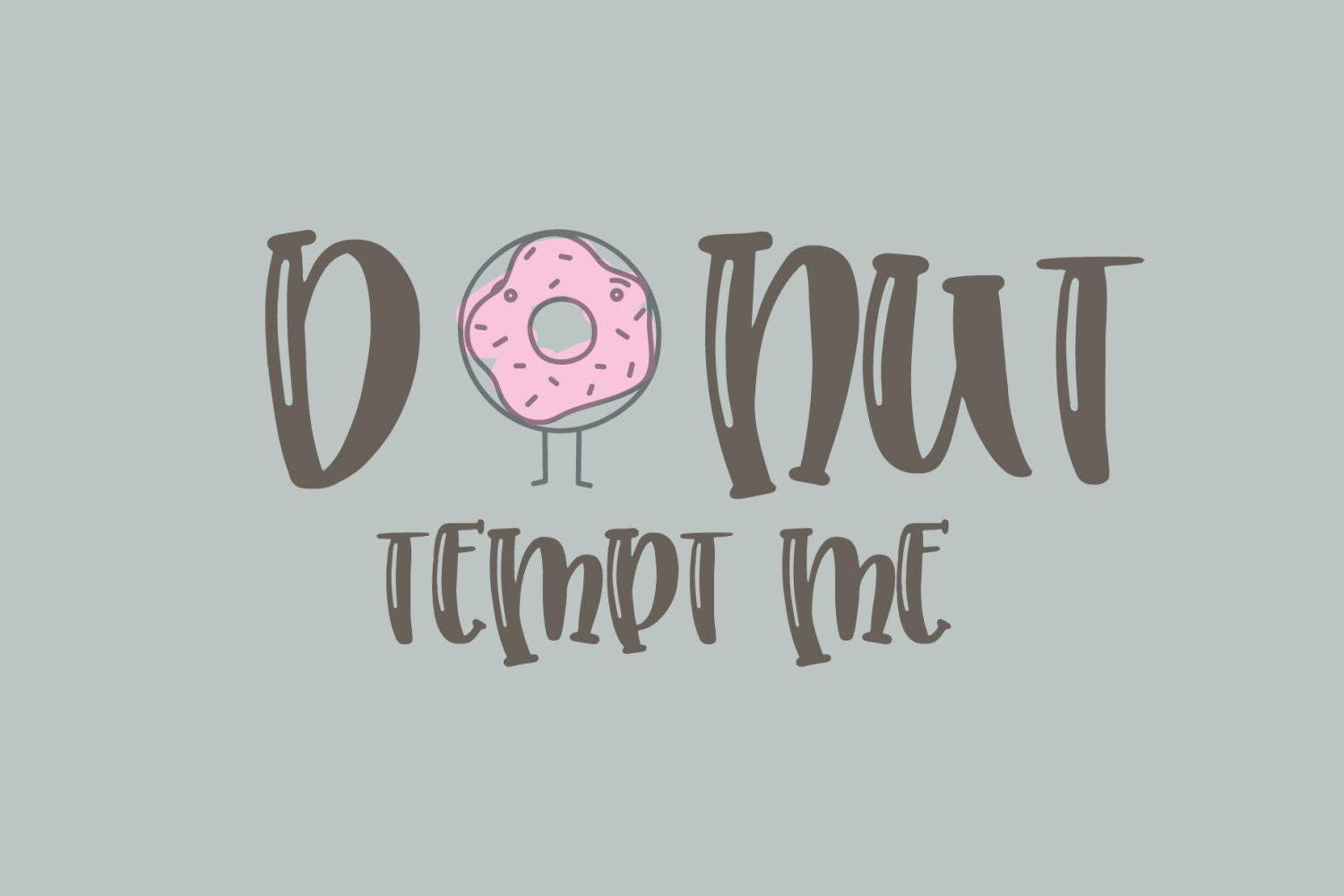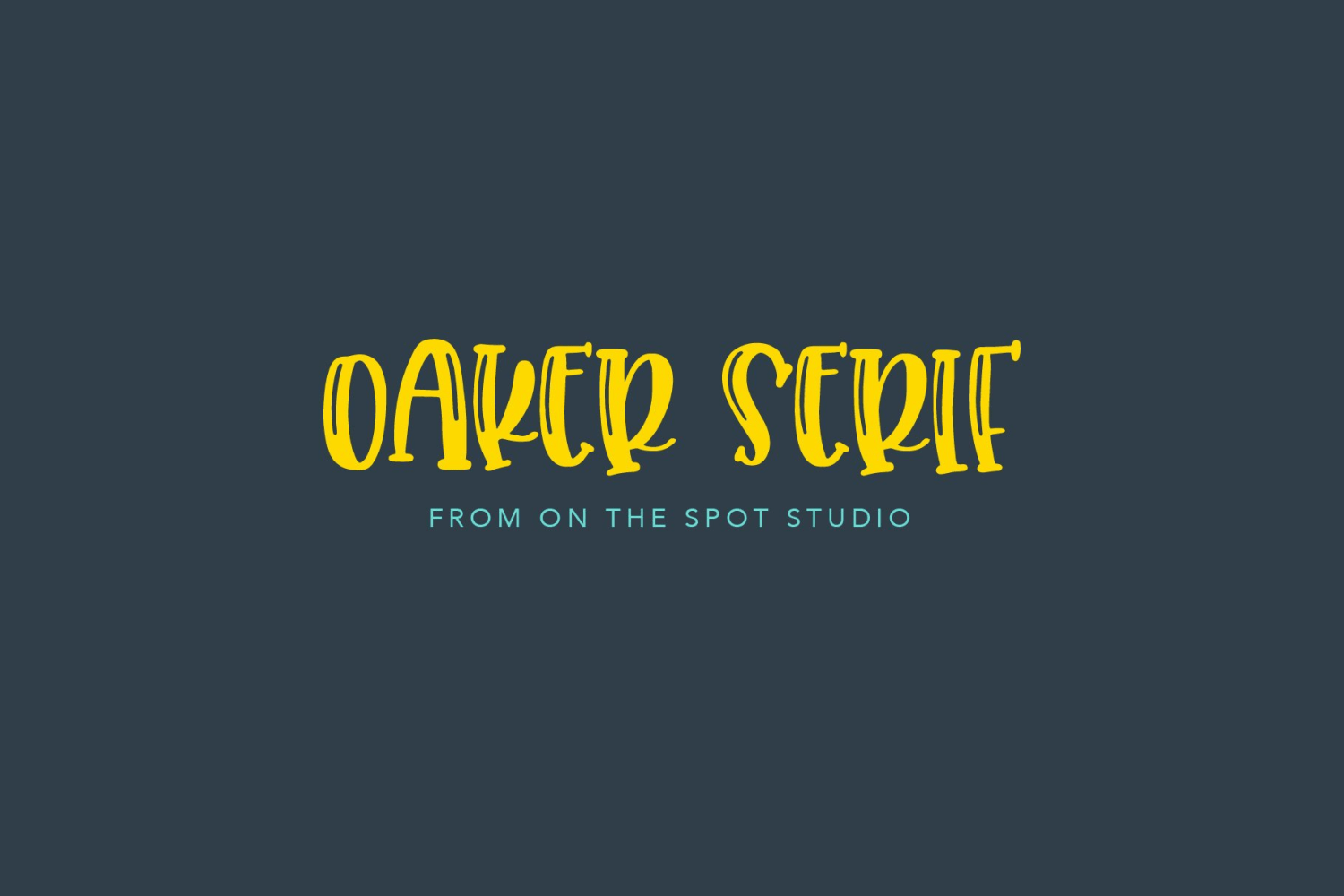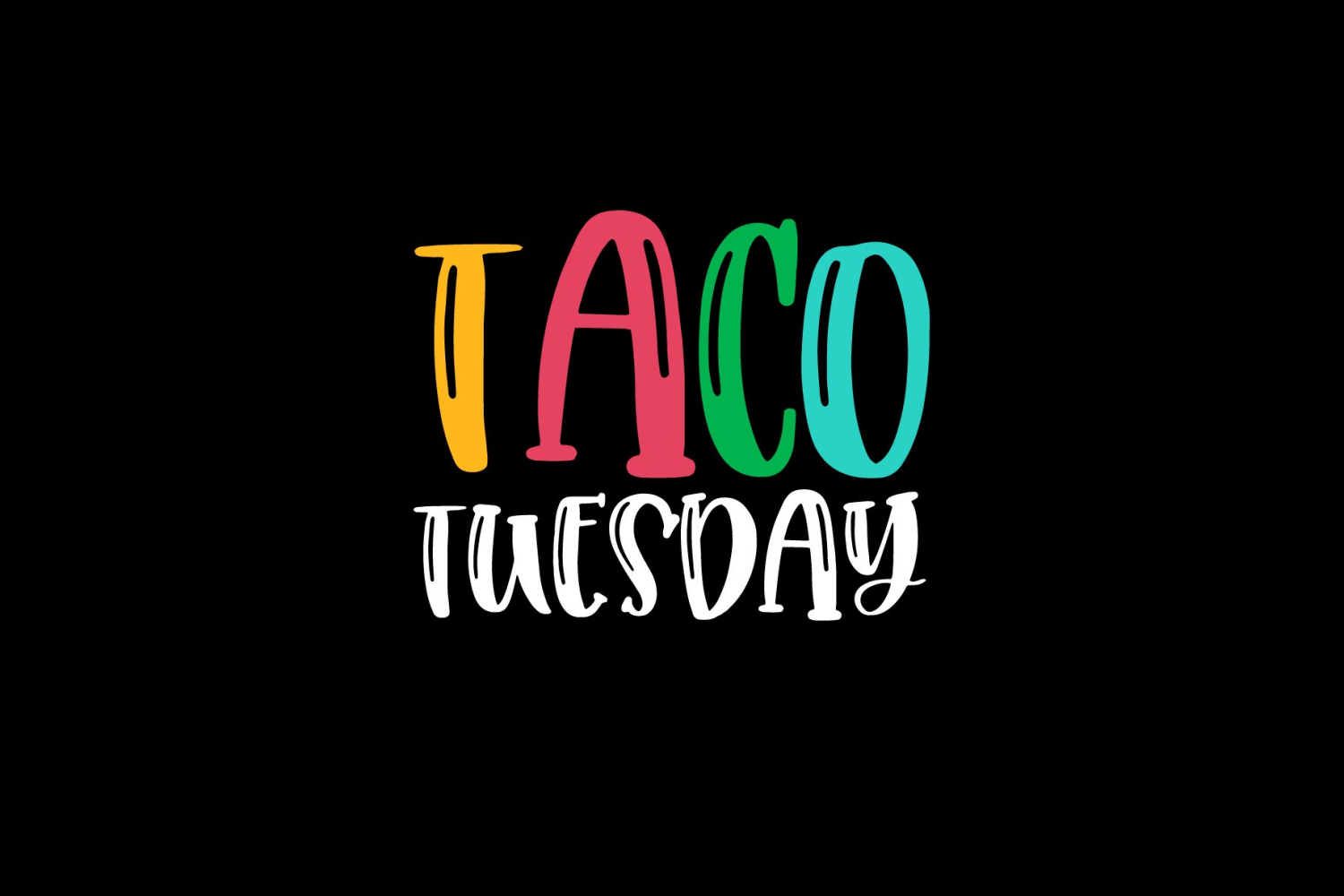
HomeFont BrosSerifOaker Serif SerifWacky Oaker Serif FacebookXPinterestWhatsApp 1 of 3 About Oaker Serif Introducing Oaker SERIF! A fun font that works PERFECTLY with the original OAKER font! PERFECT for crafting, using cutting machines such as silhouette or cricut, sublimation and more!  DOWNLOAD ON FONT BROSThis font is sold and delivered by Font Bros. Font Canyon may earn a commission if you buy through this link. People also explored Filmotype Prima Whilly Font The Castellon Font Sefia Font Buttersoy Font Minoila Unicorn Font Children Font Rettrama Font 519 0 TagsOaker Serif Font Previous articleGothic ExtrasNext articleWexfordOakley LEAVE A REPLY Cancel reply Comment: Please enter your comment! Name:* Please enter your name here Email:* You have entered an incorrect email address! Please enter your email address here Website: Save my name, email, and website in this browser for the next time I comment. Personal Use Free I Am Exceptional Personal Use Free Read more about this font The Royal Personal Use Free Read more about this font Travelling Free Brush Personal Use Free Read more about this font William Personal Use Free Read more about this font BLOG Free vs Paid Fonts: Why Investing in Premium Fonts Is Worth It Free vs Paid Fonts: Why Premium Fonts Are Worth It in 2025 The debate of free vs paid fonts continues in the design world. While... How to Cut Any Font on Cricut: Convert a Font to SVG (Free) Transform Your Website: Elevate Your Typography with 7 Best Web Font Generators Best Fonts for YouTube Videos: Make Your Thumbnails Stand Out